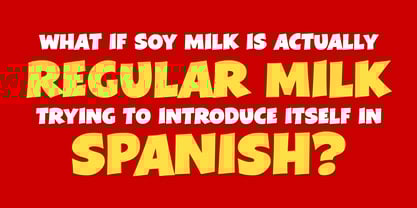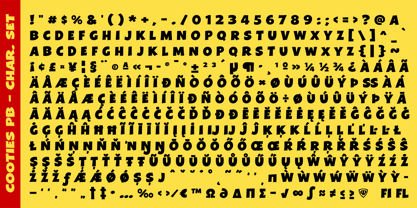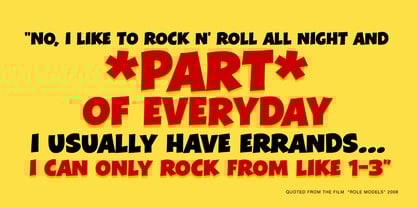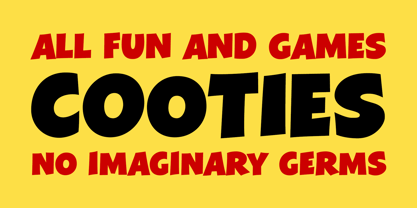
Cooties PB
by Pink Broccoli
The Cooties PB Font Family was designed by Brian J. Bonislawsky, Phil Bracco and published by Pink Broccoli. Cooties PB contains 1 styles. More about this family
Cooties PB is a cheerful little troublemaker inspired by the lively lettering of vintage breakfast advertising. Based on a classic Weet-Bix “3-Biscuit Breakfast” promotion, this playful sans brings a friendly bounce and just enough quirk to keep things interesting. It’s expressive without trying too hard — the typographic equivalent of a kid running outside after breakfast with a pocket full of imagination. Alternate capitals appear in the lowercase positions for extra typographic variety, letting headlines dance across the page with personality. Cooties PB is right at home in playful branding, nostalgic packaging, posters, kids’ projects, and designs that don’t take themselves too seriously.
Designers: Brian J. Bonislawsky, Phil Bracco
Foundry: Pink Broccoli